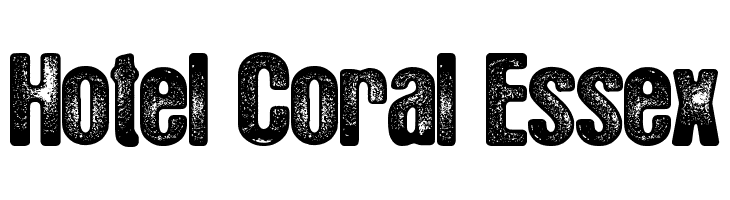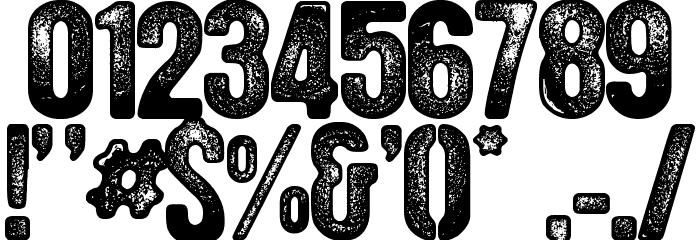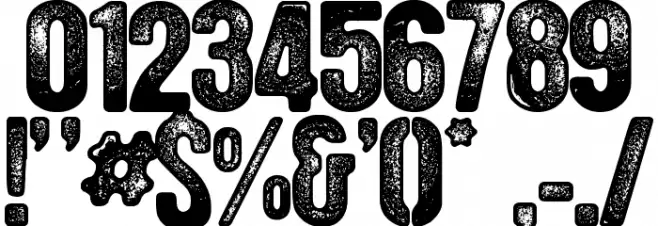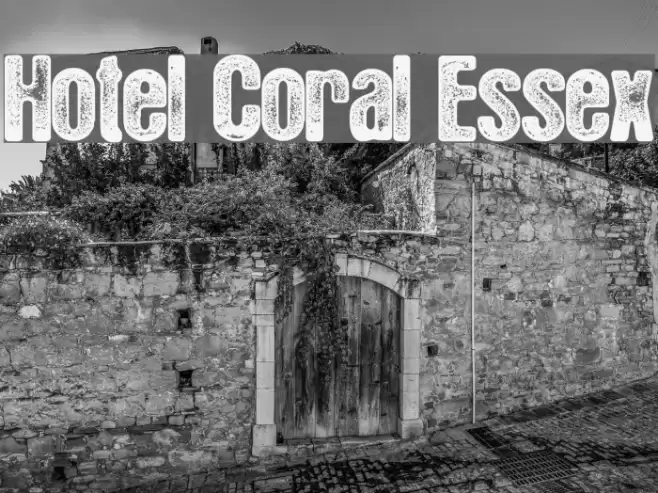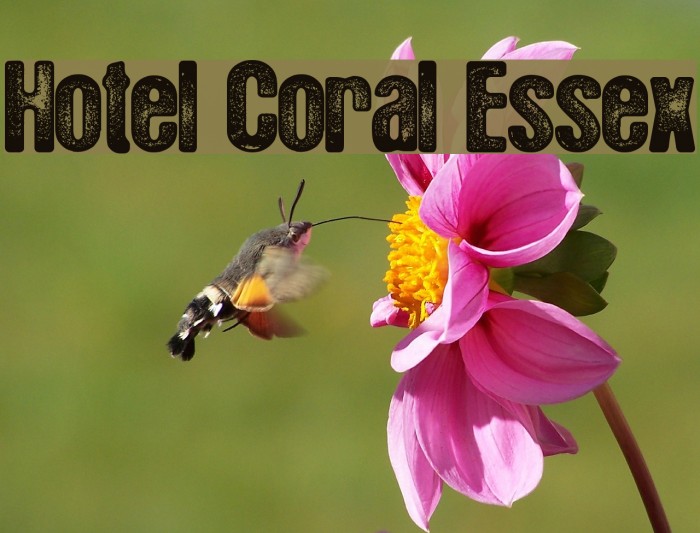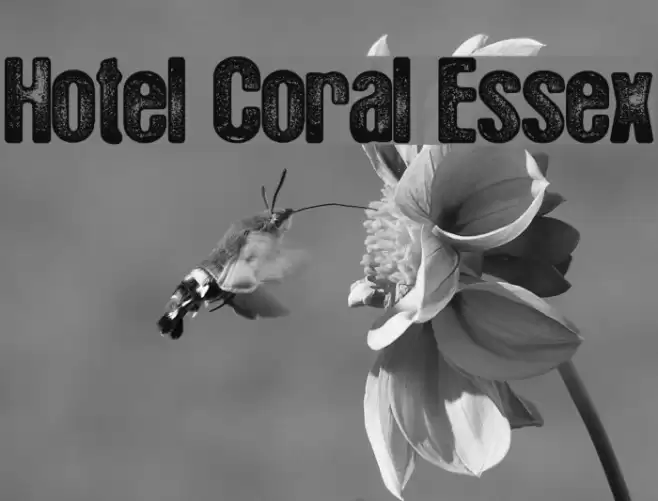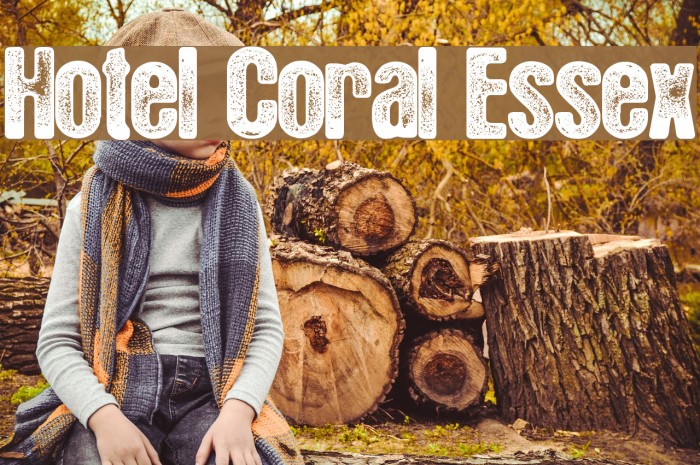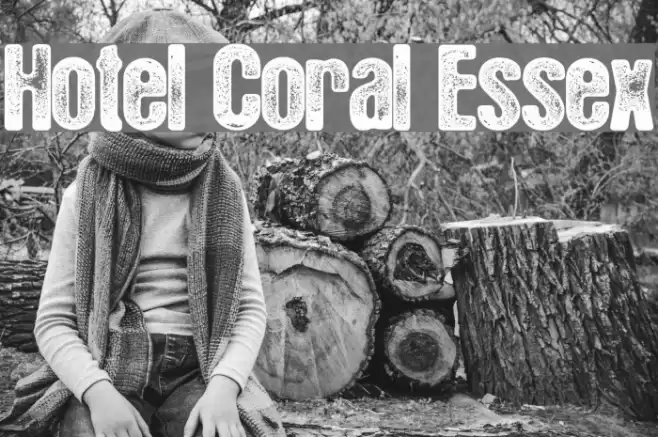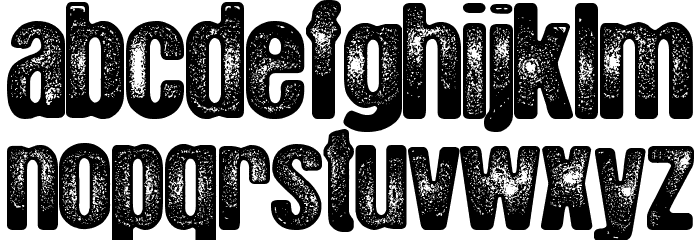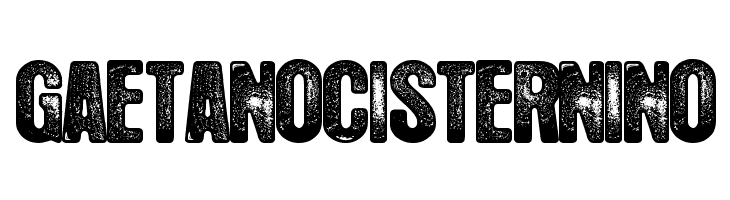
Hotel Coral Essex Font
This font features a bold, distressed style with a textured appearance that gives it a vintage, worn look. The characters are thick and robust, with a slightly rounded shape that adds a touch of softness to the otherwise rugged design. The distressed effect is consistent across all characters, creating a cohesive and unified appearance. This font is ideal for projects that require a retro or grunge aesthetic, as it effectively conveys a sense of age and character. The boldness of the letters ensures high visibility, making it suitable for attention-grabbing headlines or impactful logos.
A bold, distressed font with a vintage, textured appearance.
• Proposed Projects: Ideal for vintage-themed posters, retro branding, album covers, and grunge-style designs.
• Category: Decorative/Display
• Bold: Yes
• Italic: No
• Weight: Bold
• Width: Normal
• Character Spacing: Normal
• Contrast: Low
• Overall Style: Vintage
• Use Case: Headlines, Logos